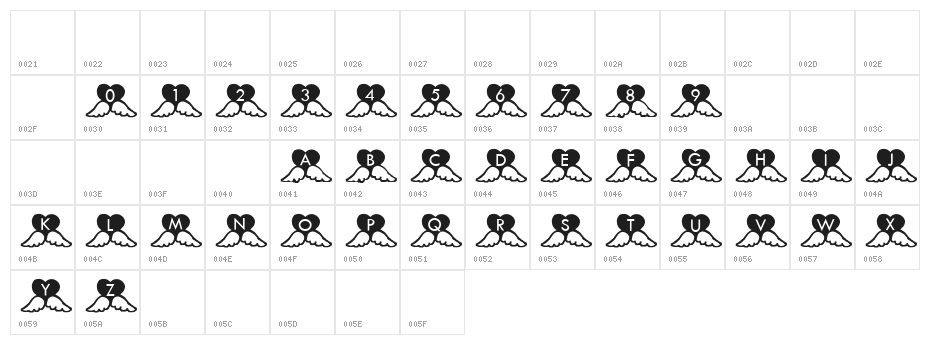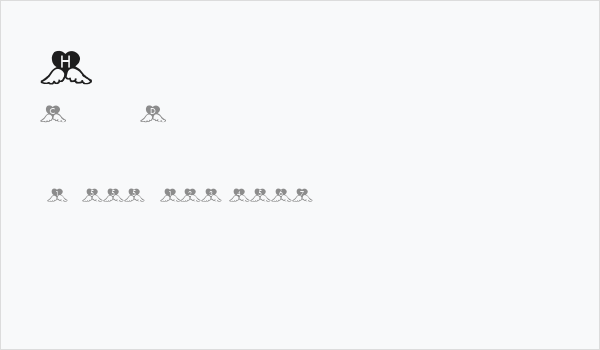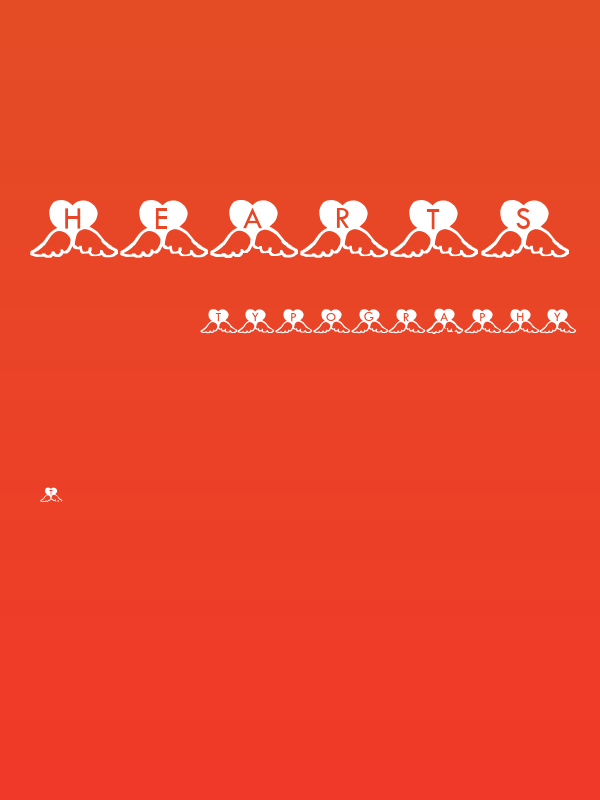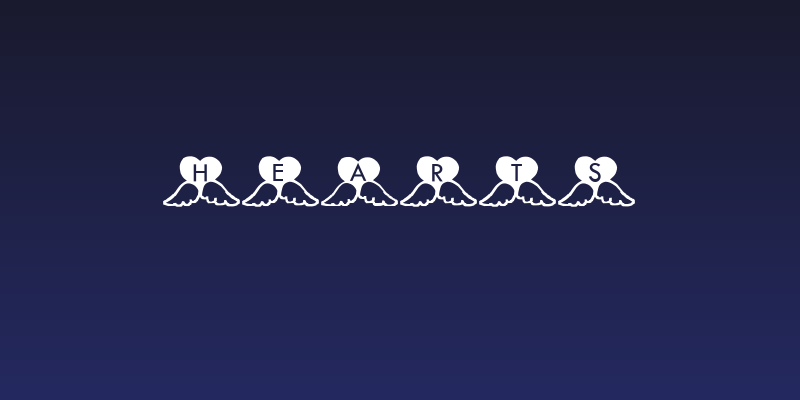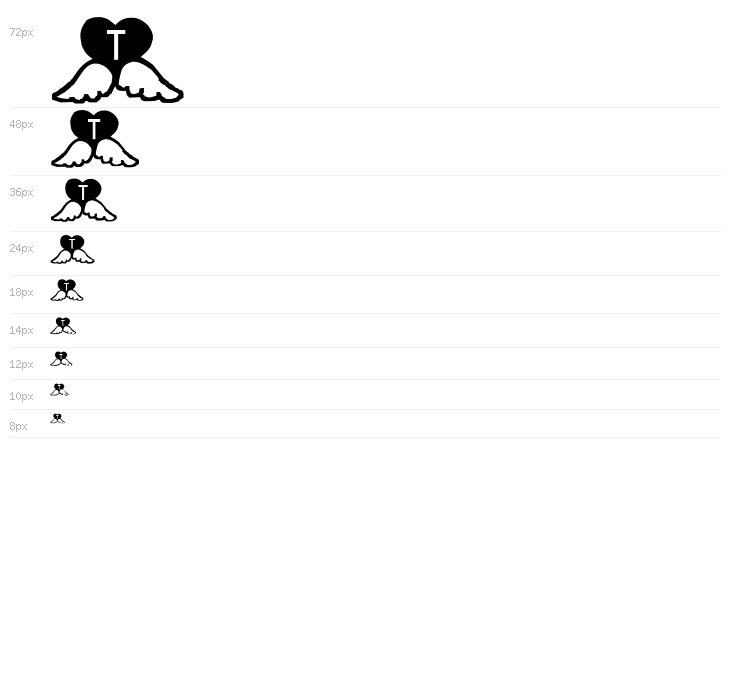
Hearts Font
| Stile generale | Playful and Romantic |
| Caso d'uso | Logos, Invitations, Decorative Text |
| Progetti proposti | Ideal for Valentine's Day cards, wedding invitations, playful branding, children's party invitations, and decorative posters. |